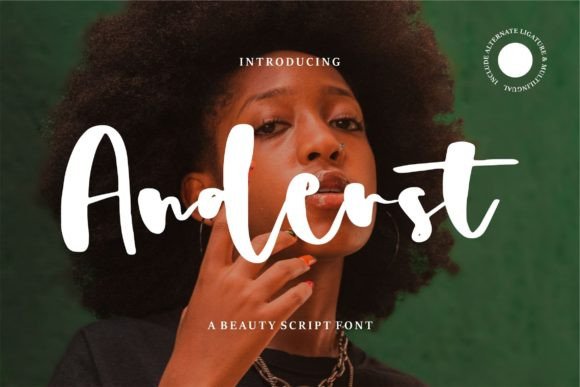
The Anderst Font: Elevate Your Designs with Elegance and Sophistication
Have you ever been in the middle of a design project, and suddenly, you’re stuck on finding the perfect font? I recall a recent experience where I was working on a wedding invitation design, and my client requested a font that exuded elegance and sophistication. After hours of searching, I stumbled upon the Anderst font, and it instantly became the perfect fit. In this article, I’ll share my journey with the Anderst font, its features, and how to make the most of it in your designs.
A Personal Review: What I Love About Anderst
The Anderst font has quickly become one of my go-to fonts for various design projects. Here’s what I love about it:
- ✨ Beautiful and Refined Script: Anderst boasts a classy, elegant, and modern look that’s perfect for logos, branding, invitations, stationery, wedding designs, social media posts, and more!
- ✅ PUA Encoded for Easy Access: The font is PUA encoded, making it easy to access all the amazing glyphs and ligatures.
While Anderst is an excellent font, there are a few minor quirks to be aware of:
- 🤔 Glyph Access: Some users might find it challenging to access certain glyphs, but this can be easily resolved by using the font’s OpenType features or consulting the font’s documentation.
- ⚠️ Overuse: As with any elegant font, there’s a risk of overusing Anderst. Make sure to balance it with other design elements to avoid overwhelming your audience.
The Story Behind Anderst
The Anderst font was designed with the intention of creating a beautiful, refined script that would cater to the needs of designers looking for an elegant and modern look. Inspired by classic calligraphy, Anderst’s creator aimed to craft a font that would be both versatile and sophisticated.
| What is the Anderst font best used for? | The Anderst font is ideal for designs that require an elegant and sophisticated look, such as logos, branding, invitations, stationery, wedding designs, and social media posts. |